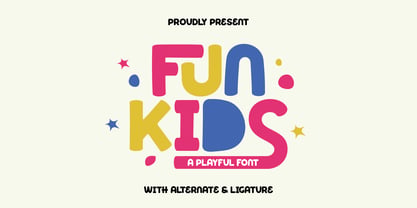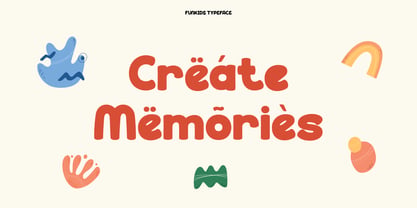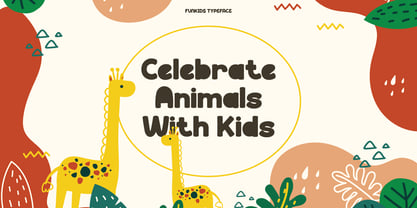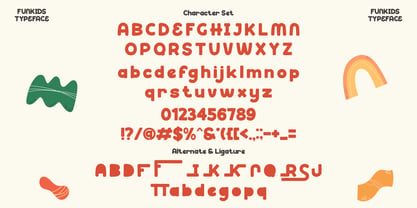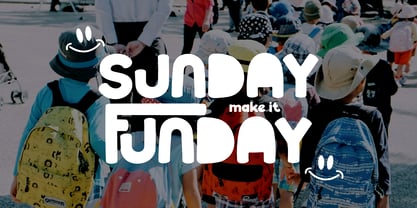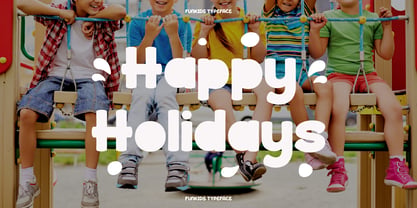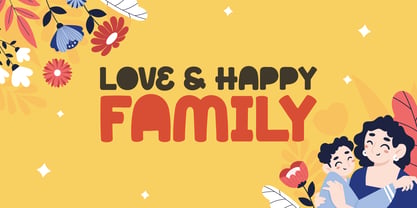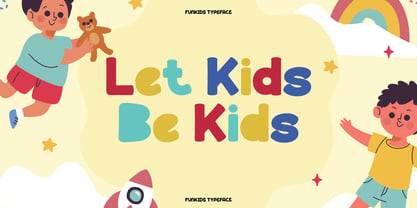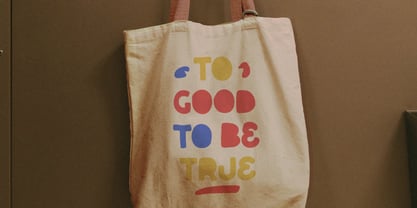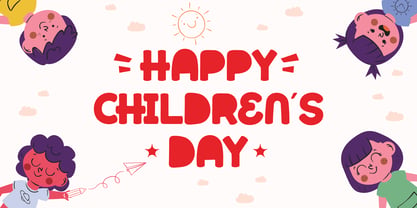
Funkids
by Flawlessandco
The Funkids Font Family was designed by Achmad Yani and published by Flawlessandco. Funkids contains 1 styles. More about this family
FUN KIDS is a bubbly and joyful typeface created to bring smiles and color into your design projects. With its chubby shapes, rounded corners, and whimsical ligatures, FUN KIDS captures the innocence, creativity, and energy of childhood. Whether you're designing for children’s books, school posters, games, toys, or party invitations, this font adds the perfect splash of fun and friendliness. Every letter in FUN KIDS is designed with imagination in mind — making your words feel like they’re ready to jump off the page and play! It comes packed with alternates and ligatures to mix things up and keep the vibe fresh and dynamic.
Features :
Multilingual, Uppercase alphabet A-Z, Lowercase alphabet a-z, Numbers 0-9, Some punctuation, Alternates & Ligatures
Designers: Achmad Yani
Foundry: Flawlessandco